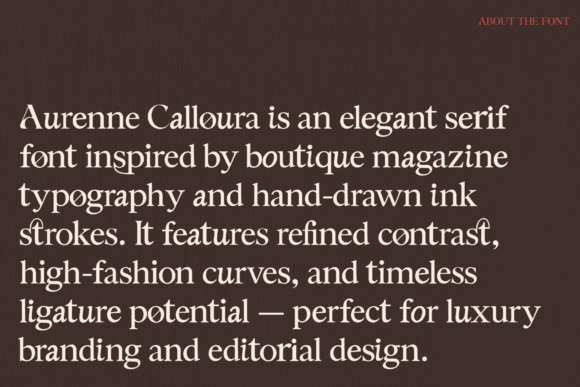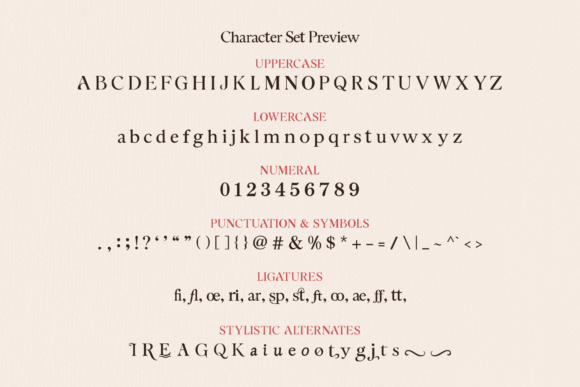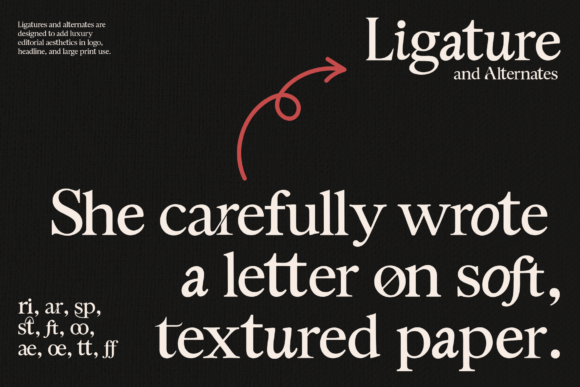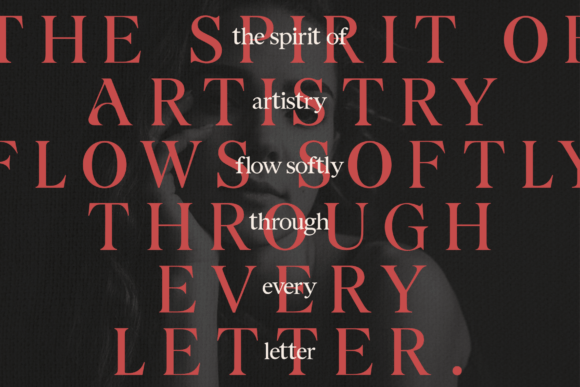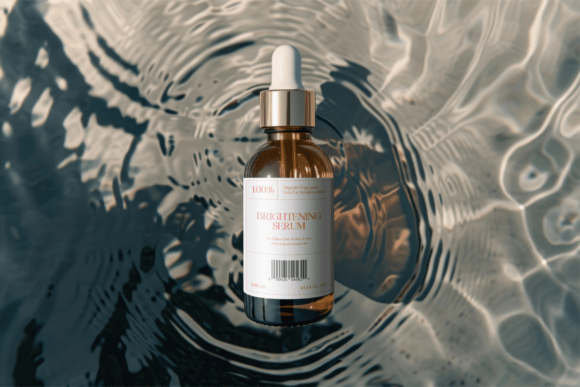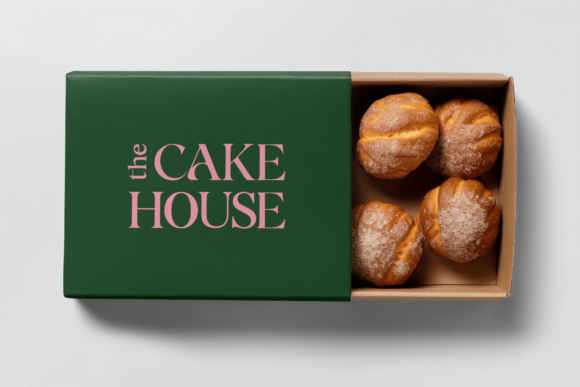
✨ Aurenne Calloura – Elegant Editorial Serif Font
Introducing Aurenne Calloura, a luxurious serif font that embodies the essence of high-fashion editorials, boutique magazines, and timeless elegance. This exquisite typeface is hand-drawn with delicate ink strokes and refined details, making it the perfect choice for designers who value aesthetics and want to create a polished, upscale look.
Design and Features
Aurenne Calloura boasts high-contrast strokes, gentle curves, and elegant ligatures, which collectively bring a modern classic charm to every layout. The font’s design is characterized by its:
- High-contrast strokes: The font features dramatic contrast between thick and thin strokes, creating a sense of luxury and sophistication.
- Gentle curves: The smooth, flowing curves of Aurenne Calloura add a touch of elegance and refinement to any design.
- Elegant ligatures: The font includes a range of ligatures that enhance the overall aesthetic of the text, creating a seamless and polished look.
Perfect For
Aurenne Calloura is an incredibly versatile font, suitable for a wide range of design applications. Some of the ideal uses for this font include:
- Fashion branding & logos: Create a luxurious and sophisticated brand identity with Aurenne Calloura.
- Editorial magazine layouts: Elevate your magazine design with the font’s elegant and refined aesthetic.
- Wedding invitations & stationery: Add a touch of luxury and romance to your wedding designs with Aurenne Calloura.
- Luxury packaging design: Create high-end packaging designs that exude sophistication and elegance.
- Elegant quotes & social media graphics: Use Aurenne Calloura to create stunning social media graphics and quotes that showcase your design skills.
Why Choose Aurenne Calloura?
With Aurenne Calloura, you can:
- Elevate your design: Add a touch of luxury and sophistication to your designs with this exquisite font.
- Create a polished look: Achieve a refined and upscale aesthetic with Aurenne Calloura’s elegant design.
- Stand out from the crowd: Use a unique and distinctive font that will set your designs apart from others.
Tips for Using Aurenne Calloura
To get the most out of Aurenne Calloura, consider the following tips:
- Use it as a headline font: Aurenne Calloura is perfect for headlines and titles, where its elegant design can shine.
- Pair it with a sans-serif font: Combine Aurenne Calloura with a sans-serif font for a striking contrast and a modern look.
- Experiment with font sizes: Play with different font sizes to create visual interest and hierarchy in your design.
Aurenne Calloura is a luxurious serif font that offers a unique blend of elegance, sophistication, and refinement. With its high-contrast strokes, gentle curves, and elegant ligatures, this font is perfect for designers who want to create a polished, upscale look. Whether you’re working on a fashion brand, editorial magazine, or luxury packaging design, Aurenne Calloura is the perfect choice. So why wait? Get your hands on Aurenne Calloura today and take your designs to the next level! 💼